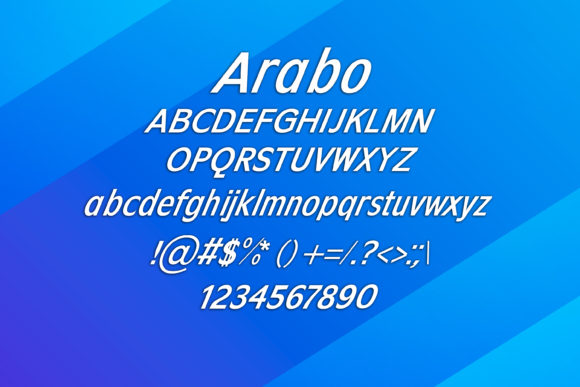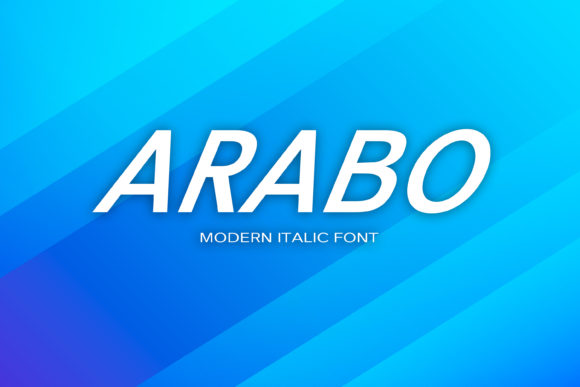
Arabo Font: The Perfect Blend of Traditional and Modern Design
In the world of typography, fonts play a crucial role in conveying the message and aesthetic of a design. For designers and crafters, finding the right font can make all the difference in creating a visually appealing and effective design. One font that has gained popularity in recent times is the Arabo Font, a sans serif font that combines traditional sign painting with a modern twist.
What is Arabo Font?
Arabo Font is a super clean and minimal typeface that is perfect for modern and contemporary designs. Inspired by traditional sign painting, Arabo Font brings a fresh and modern approach to typography. Its sans serif design makes it versatile and easy to read, while its clean lines and minimal aesthetic give it a sleek and sophisticated look.
Characteristics of Arabo Font
Arabo Font has several characteristics that make it an ideal choice for designers and crafters. Some of its key features include:
• Clean and Minimal Design: Arabo Font has a super clean and minimal design that makes it perfect for modern and contemporary designs.
• Sans Serif: The font is sans serif, making it easy to read and versatile for various design applications.
• Traditional Sign Painting Inspiration: Arabo Font draws inspiration from traditional sign painting, giving it a unique and distinctive look.
• Modern Twist: The font has a modern twist that sets it apart from traditional sign painting fonts.
Use Cases for Arabo Font
Arabo Font is perfect for a wide range of design applications, including:
• Logos: The font’s clean and minimal design makes it ideal for logos that require a modern and sophisticated look.
• Headlines: Arabo Font is perfect for headlines that require a bold and attention-grabbing font.
• Business Cards: The font’s clean lines and minimal aesthetic make it suitable for business cards that require a professional look.
• T-Shirts: Arabo Font is a great choice for t-shirt designs that require a modern and stylish font.
• More: The font’s versatility makes it suitable for a wide range of design applications, from posters to packaging.
Why Choose Arabo Font?
There are several reasons why designers and crafters should choose Arabo Font for their design projects. Some of the benefits of using Arabo Font include:
• Unique and Distinctive Look: Arabo Font has a unique and distinctive look that sets it apart from other fonts.
• Versatility: The font is versatile and can be used for a wide range of design applications.
• Easy to Read: Arabo Font is easy to read, making it perfect for designs that require a clear and concise message.
• Modern and Sophisticated: The font’s modern and sophisticated look makes it ideal for designs that require a professional aesthetic.
In conclusion, Arabo Font is a versatile and modern sans serif font that is perfect for designers and crafters looking for a unique and distinctive font for their design projects. Its clean and minimal design, combined with its traditional sign painting inspiration and modern twist, make it an ideal choice for a wide range of design applications. Whether you’re designing a logo, headline, business card, or t-shirt, Arabo Font is a great choice for creating a visually appealing and effective design.